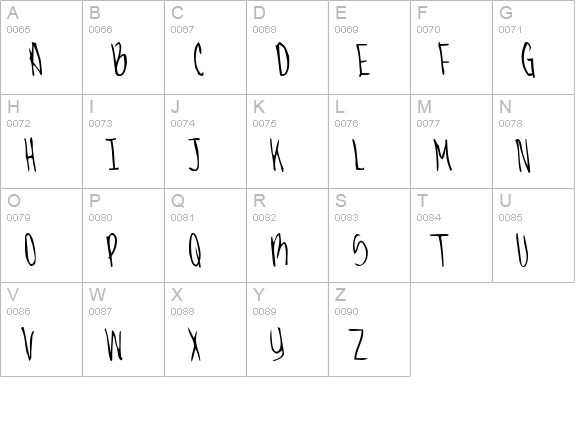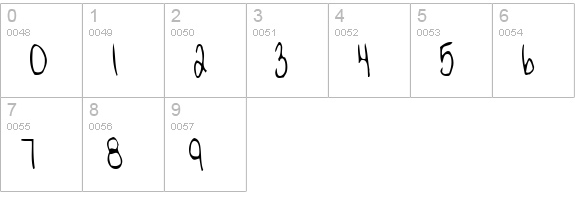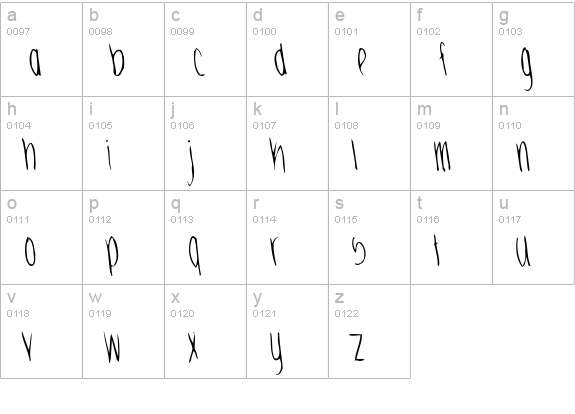
Jenna Font Details
Introducing Jenna Font, a versatile and modern typeface that is perfect for a wide range of design projects. Jenna Font features a sleek and elegant design with clean lines and a contemporary feel. This font is ideal for creating eye-catching logos, branding materials, posters, and more. The best part about Jenna Font is that it is completely free to download at FontsMarket.com. This means that you can easily access this stylish font and use it in your projects without any cost. Whether you are a graphic designer, a business owner, or a creative individual looking to enhance your designs, Jenna Font is the perfect choice for adding a touch of sophistication and style. Don't miss out on the opportunity to elevate your designs with Jenna Font. Download it for free today at FontsMarket.com and start creating stunning visuals that will impress your audience.